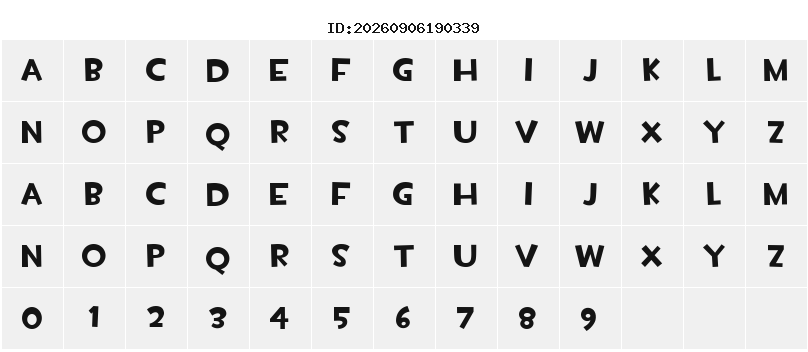
TF2 Build Preview
About TF2 Build.ttf
TF2 Build.ttf is a modern, elegant sans-serif font designed for ultimate readability and visual harmony. Perfect for branding, headlines, web design, and print materials.